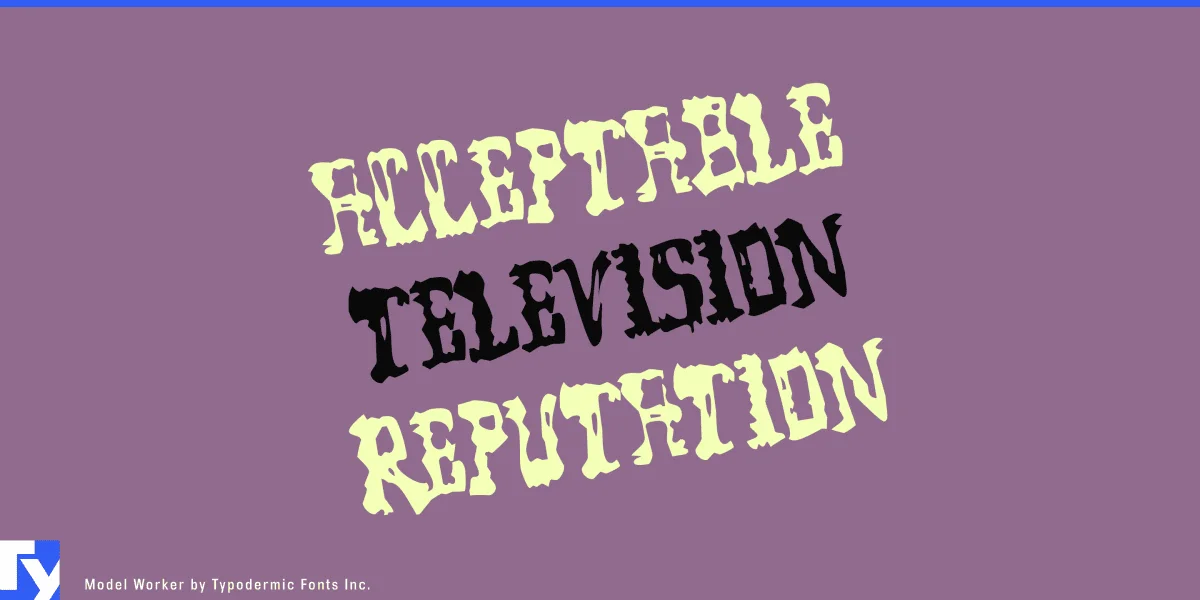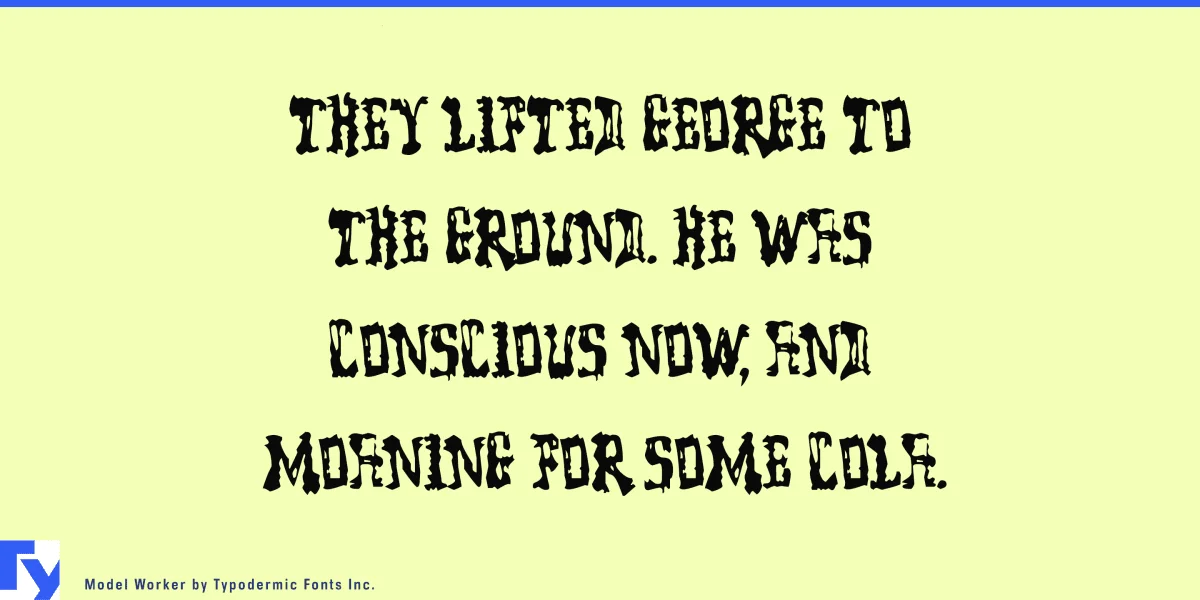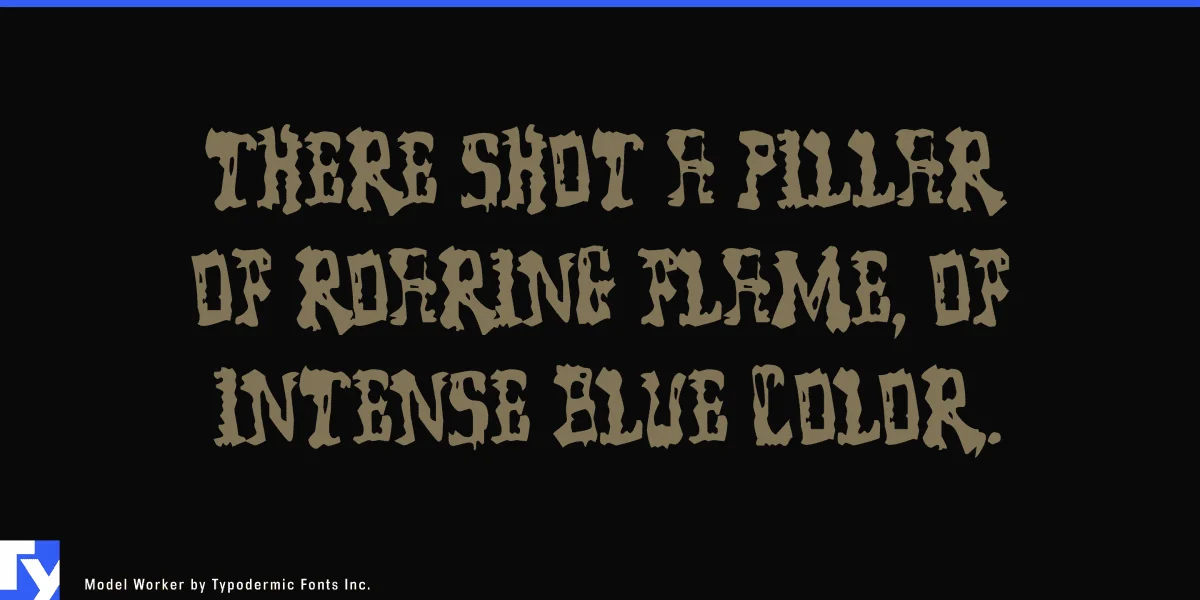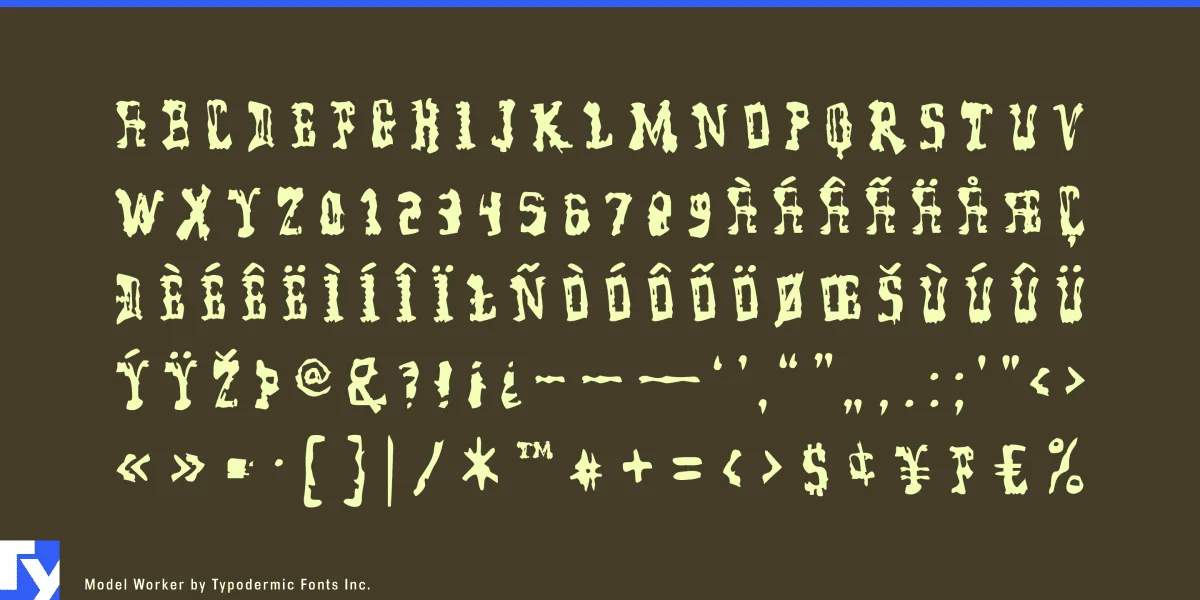
Model Worker is a broken typeface with an urgent feel. It appears to have been made by scratching paint off a school locker with a key. Infuse Model Worker's frenzied energy into your message. Some Latin-based European writing systems are supported, including the following languages. Afaan Oromo, Afar, Afrikaans, Albanian, Alsatian, Aymara, Basque, Bemba, Bikol, Breton, Cape Verdean, Creole, Catalan, Cebuano, Chamorro, Chavacano, Danish, Dawan, Dholuo, Dutch, English, Estonian, Faroese, Fijian, Filipino, Finnish, French, Frisian, Friulian, Galician, Genoese, German, Guadeloupean Creole, Haitian Creole, Hiligaynon, Icelandic, Ilocano, Indonesian, Irish, Italian, Jamaican, Kaqchikel, Kikongo, Kinyarwanda, Kirundi, Lombard, Low Saxon, Luxembourgish, Makhuwa, Malay, Ndebele, Neapolitan, Norwegian, Novial, Occitan, Papiamento, Piedmontese, Portuguese, Quechua, Rarotongan, Romansh, Sango, Saramaccan, Sardinian, Scottish Gaelic, Shona, Sicilian, Silesian, Slovak, Slovenian, Somali, Sotho, Spanish, Swahili, Swazi, Swedish, Tagalog, Tetum, Tshiluba, Tsonga, Tswana, Tumbuka, Uzbek (Latin), Venetian, Võro, Walloon, Waray-Waray, Wayuu, Xhosa, Yapese, Zapotec Zulu and Zuni.